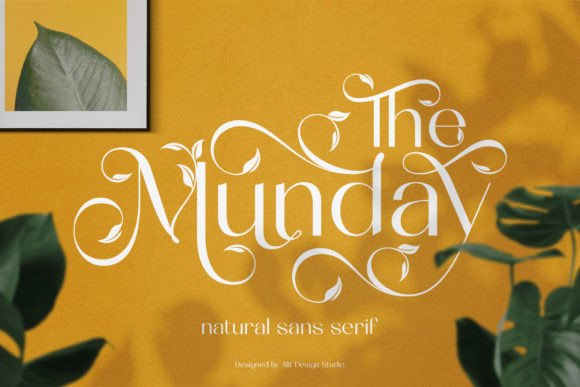
The Munday Font: A Modern Sans-Serif Font with a Nature Twist
In the world of typography, fonts play a crucial role in conveying the tone and personality of a brand or design project. With the vast array of fonts available, it can be challenging to find the perfect one that stands out from the rest. However, if you’re looking for a font that combines modernity with a touch of nature, look no further than The Munday Font. In this article, we’ll delve into the features and benefits of The Munday Font, and explore how it can elevate your design projects.
What is The Munday Font?
The Munday Font is a sans-serif font that features a unique nature concept with leaf swashes. Its modern and clean design makes it an excellent choice for various design projects, including branding, titles, logos, and more. The font’s sleek lines and minimalist approach provide a sophisticated look that’s perfect for designs that require a professional touch.
Key Features of The Munday Font
- Modern and Clean Design: The Munday Font boasts a contemporary design that’s perfect for designs that require a fresh and modern look.
- Nature Concept with Leaf Swashes: The font’s leaf swashes give it a unique and playful touch, making it suitable for projects with a nature or organic theme.
- PUA Encoded: The Munday Font is PUA encoded, which means you can access all glyphs and swashes effortlessly.
- Sans-Serif Font: The font’s sans-serif design provides a clean and minimalist look that’s perfect for a wide range of design projects.
The Benefits of Using The Munday Font
The Munday Font offers several benefits that make it an excellent choice for designers and brands. Some of the benefits include:
- Versatility: The Munday Font can be used for various design projects, including branding, titles, logos, and more.
- Uniqueness: The font’s leaf swashes give it a unique and playful touch that sets it apart from other fonts.
- Modernity: The font’s modern and clean design makes it perfect for designs that require a fresh and contemporary look.
- Easy to Use: The Munday Font is PUA encoded, making it easy to access all glyphs and swashes.
How to Use The Munday Font
The Munday Font is easy to use and can be incorporated into various design projects. Here are some tips on how to use the font:
- Branding: Use The Munday Font for branding projects, such as logos, business cards, and letterheads.
- Titles and Headings: Use the font for titles and headings to add a touch of modernity and sophistication.
- Logos: Use The Munday Font to create unique and memorable logos that stand out from the rest.
- Digital Designs: Use the font for digital designs, such as website headers, social media graphics, and more.
The Munday Font is a modern sans-serif font that features a unique nature concept with leaf swashes. Its clean and modern design makes it perfect for various design projects, including branding, titles, logos, and more. The font’s PUA encoding makes it easy to access all glyphs and swashes, and its versatility makes it suitable for a wide range of design projects.
Whether you’re a designer or a brand looking for a unique and modern font, The Munday Font is an excellent choice. Its combination of modernity and nature makes it stand out from the rest, and its ease of use makes it perfect for designers of all levels.